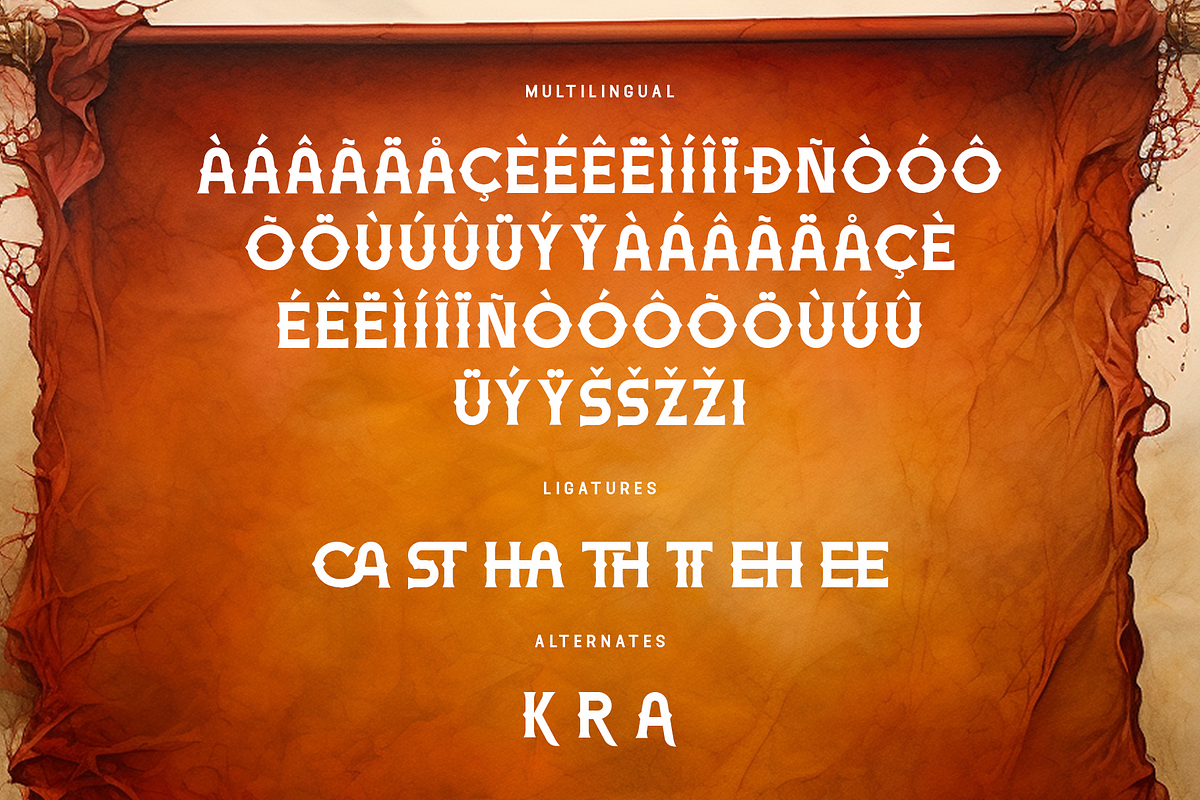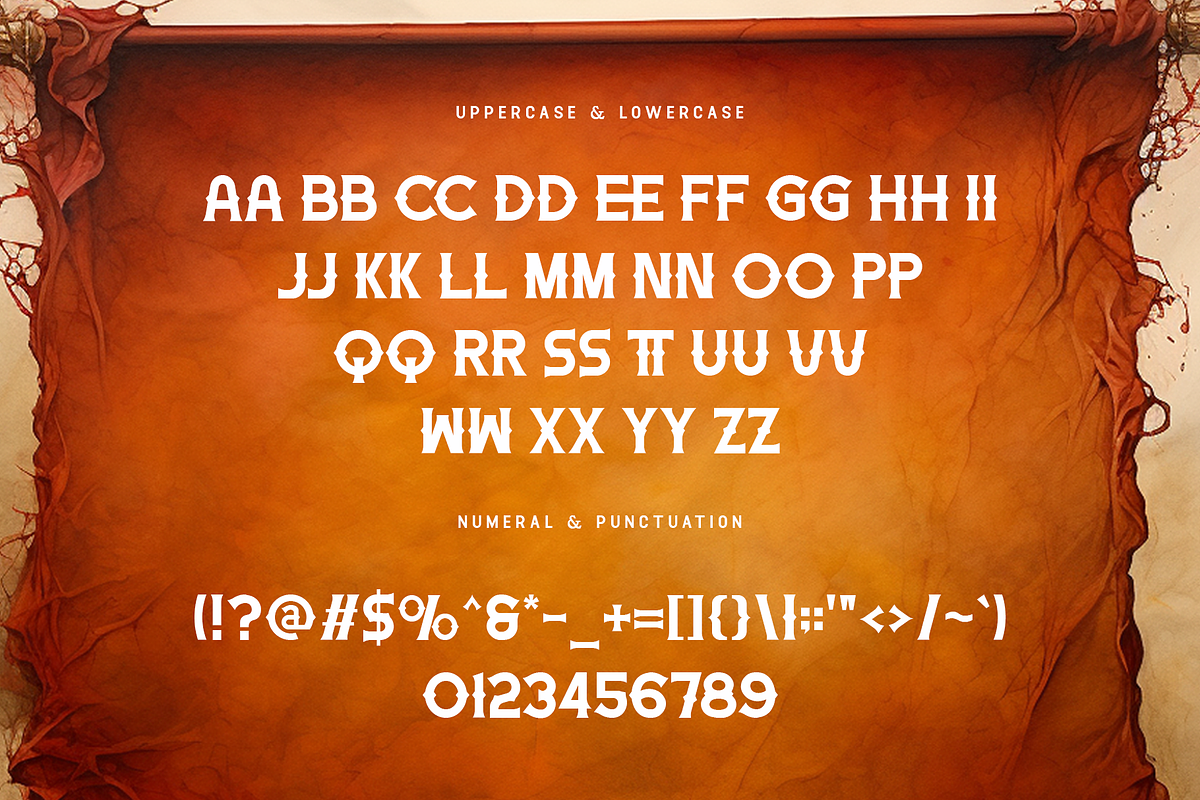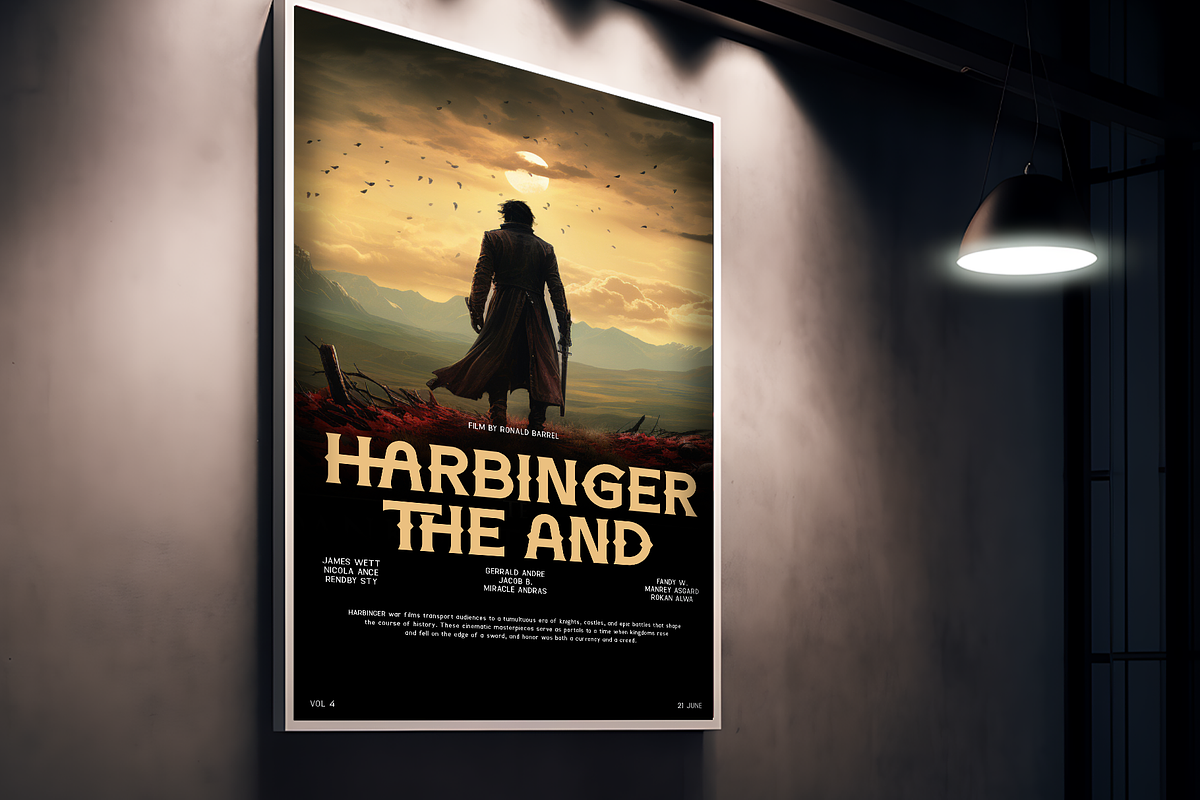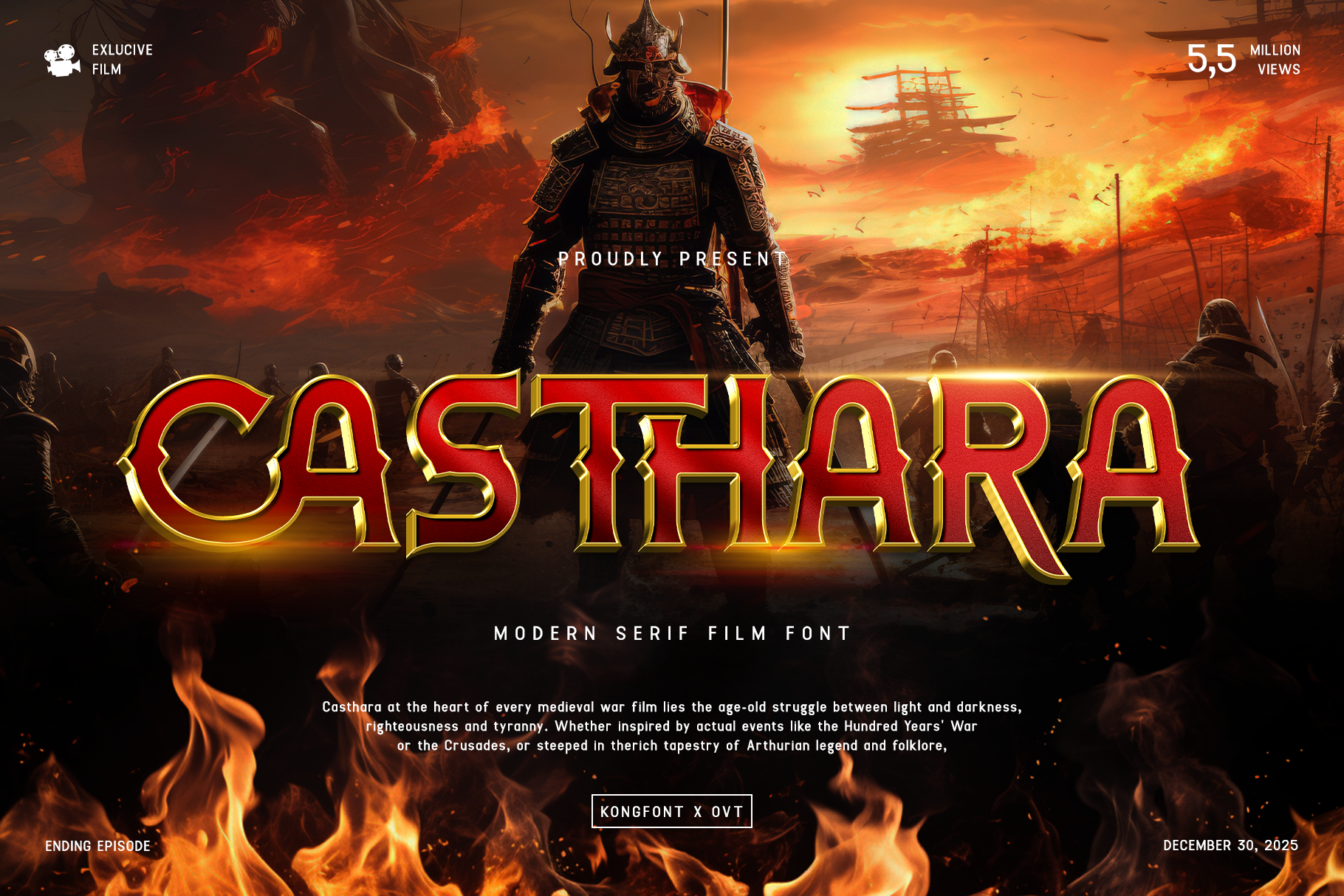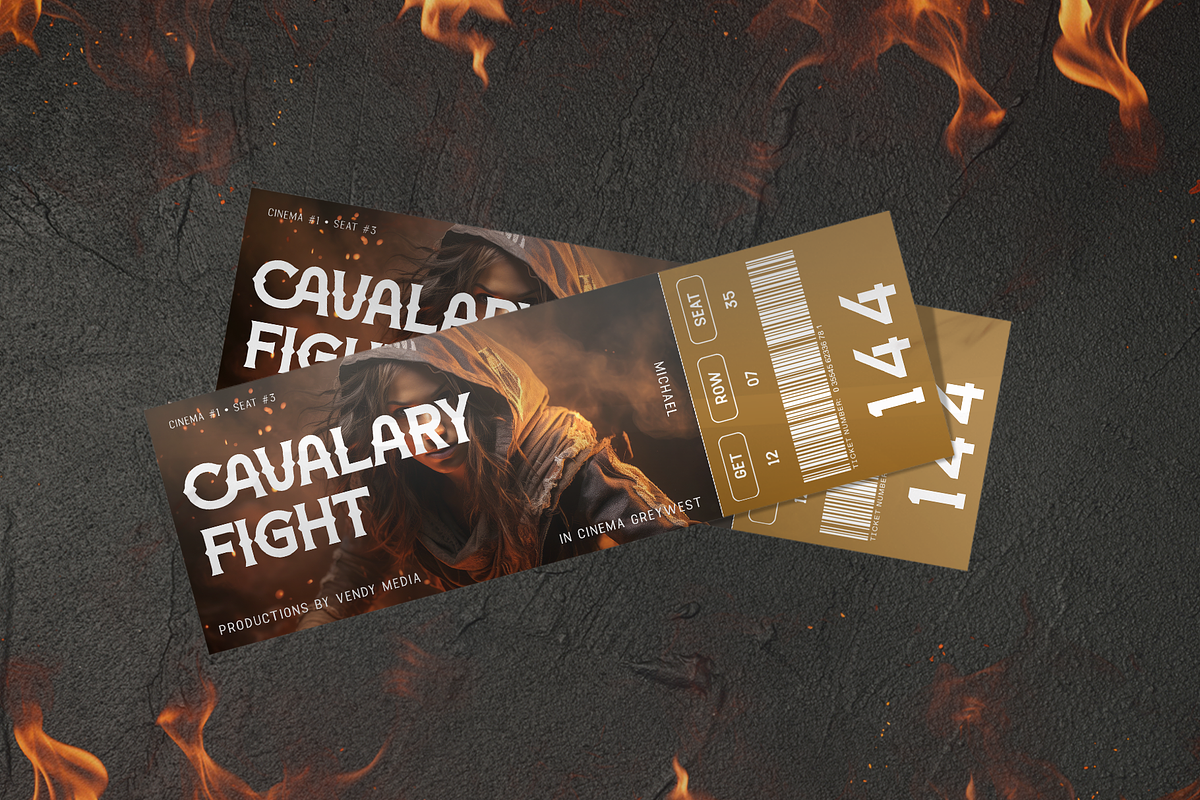
Casthara - Modern Serif Film Font
Introducing "Casthara," a modern serif film font that brings cinematic elegance to your creative projects. Perfect for filmmakers, designers, and creatives seeking to add a touch of sophistication to their work, Casthara combines classic serif design with modern styling to deliver a truly unique typographic experience.
Ideal for film titles, posters, logos, and branding materials, Casthara's refined lines and graceful curves make a powerful visual statement. Each character is meticulously crafted to offer a clean and polished look, ensuring your designs exude professionalism and charm.
The "Casthara" font includes a complete set of uppercase and lowercase letters, numbers, and punctuation marks, providing the versatility and flexibility needed for a wide range of design applications. Whether you're working on cinematic projects or creating elegant branding, Casthara elevates your designs with its timeless and stylish aesthetic.
Bring a touch of cinematic elegance to your work with Casthara, a modern serif film font that captures the essence of refined design.